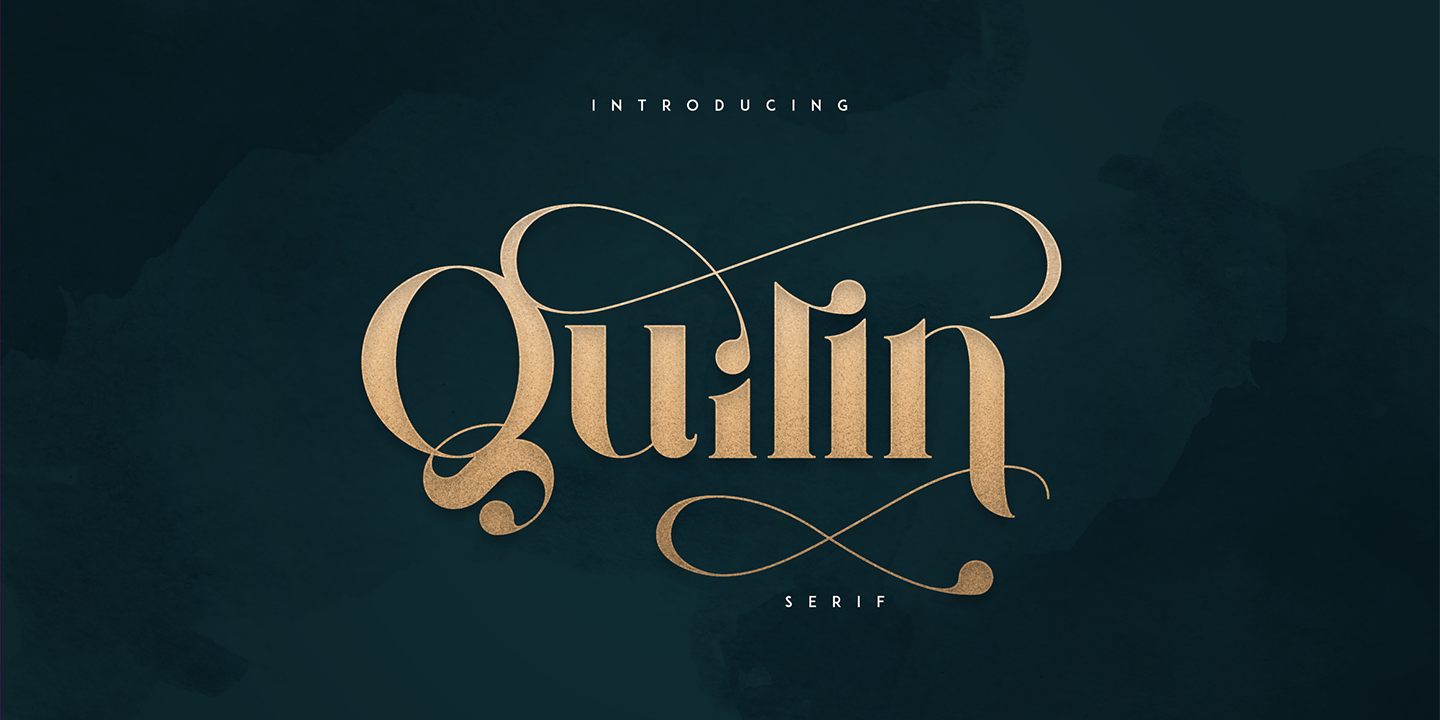
Quilin Font is perfect for mythical branding projects, Asian cultural publications, legendary storytelling designs, mystical gaming graphics, spiritual wellness centers, ancient wisdom publications, and enchanting cultural celebrations.
What makes Quilin Font exciting is its mythical grace and legendary elegance, featuring celestial letterforms that capture the essence of ancient wisdom while delivering mystical visual appeal and cultural authenticity.
The Quilin Font family includes Light, Regular, Medium, Bold, and Heavy weights, plus mystical variants and legendary alternates that enhance the font's magical character and cultural possibilities.
Quilin Font Free Download embodies the majestic spirit of mythical creatures and the timeless wisdom of ancient legends through enchanting typography design. This mystical typeface captures the graceful power of legendary beings and the profound depth of cultural mythology, creating a magical visual language that speaks to spiritual seekers and cultural enthusiasts who value ancient wisdom, mythical beauty, and the transformative power of legendary storytelling. The font's mystical character and legendary appearance make it perfect for cultural organizations, spiritual centers, and entertainment companies that want to communicate wisdom, magic, and the enchanting appeal of mythical traditions.
Cultural institutions and spiritual organizations consistently select Quilin Font for projects that require authentic mythical credibility and mystical visual appeal. The typeface's graceful construction and legendary personality make it exceptionally effective for cultural centers, spiritual retreats, and entertainment venues where ancient wisdom and mythical authenticity are paramount. Each character has been designed with mystical precision to ensure maximum enchantment across all cultural applications and spiritual environments.
The cultural advantages of Quilin Font extend beyond its mythical appeal to include practical functionality for diverse spiritual applications. The font maintains excellent readability in sacred settings while delivering the distinctive character that creates meaningful cultural connections and resonates with audiences seeking authentic ancient wisdom. Its comprehensive character set includes mystical symbols and cultural elements that make it particularly suitable for spiritual documentation and legendary communication.
Cultural centers, spiritual retreats, and entertainment companies frequently choose Quilin Font because of its ability to instantly convey mythical authenticity and cultural sophistication. The typeface's mystical aesthetic helps establish credibility in cultural markets while appealing to audiences who value ancient wisdom, spiritual tradition, and the enchanting experiences that come from authentic mythical storytelling and legendary cultural heritage.